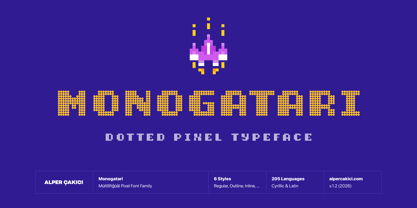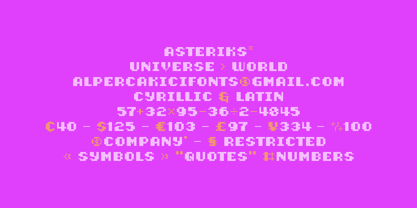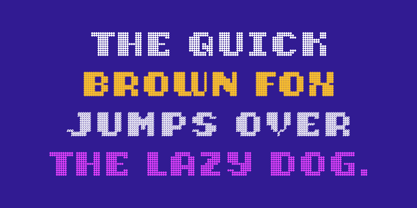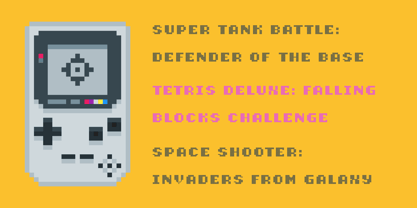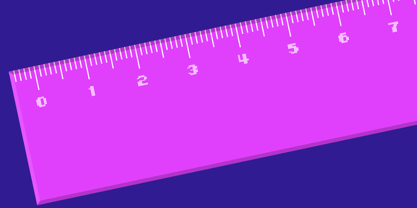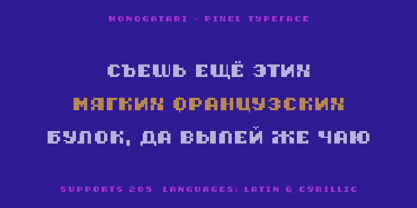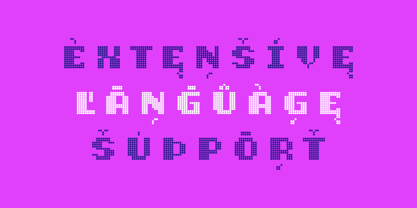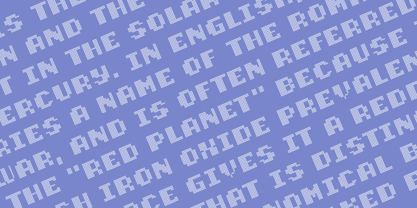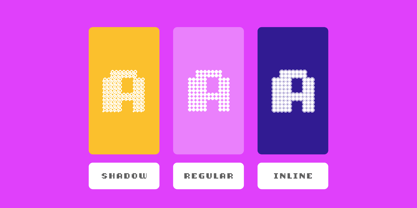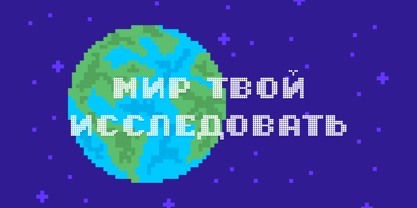
Monogatari
by AlperCakici
The Monogatari Font Family was designed by Alper Çakıcı and published by AlperCakici. Monogatari contains 1 styles.
Monogatari - A Display Font : Monogatari is a carefully crafted display font. It has Extended Latin and Cyrillic characters. It created for poster, web, brand and social media designs.
Designers: Alper Çakıcı